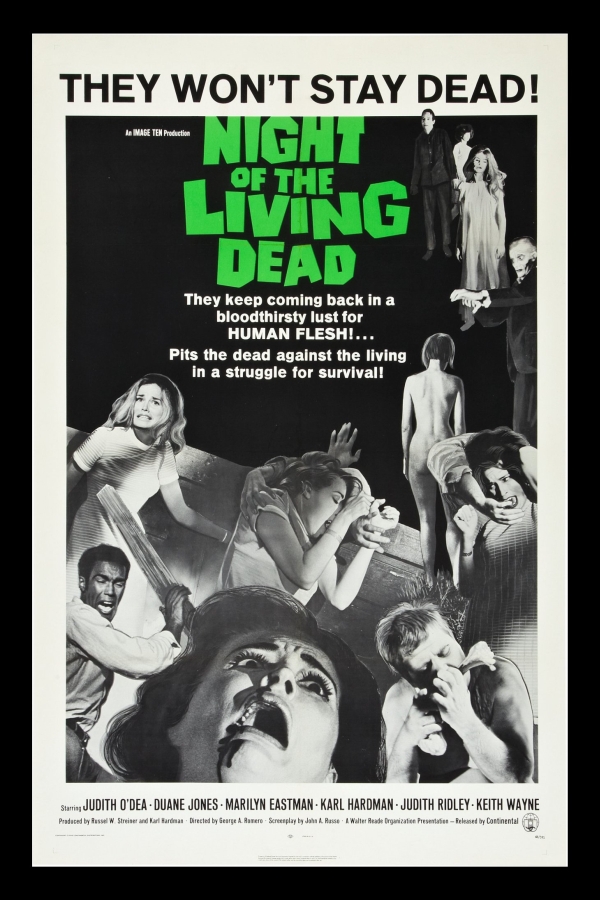
Night of the Living Dead Font
Fonts in UseNight of the Living Dead s a 1968 horror film directed by George A. Romero. It follows a group of people who are trapped in a farmhouse during a zombie apocalypse.
Deanna font was created by Chris Hansen using the lettering from the film's title. It is exclusively available in capital letters and numerals and can be downloaded for free from the Fonts Used Section.